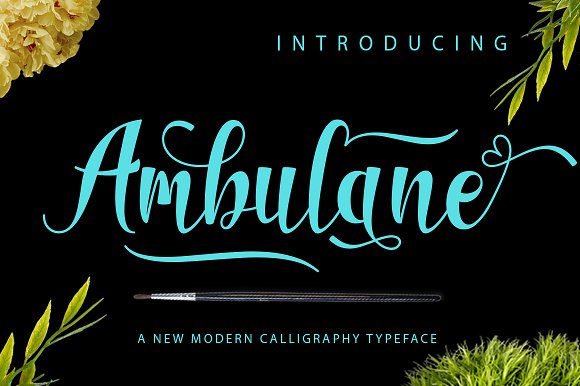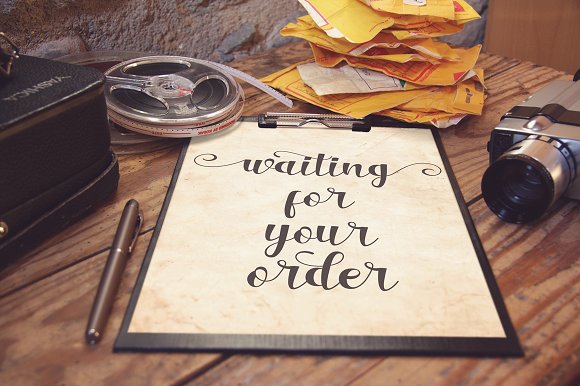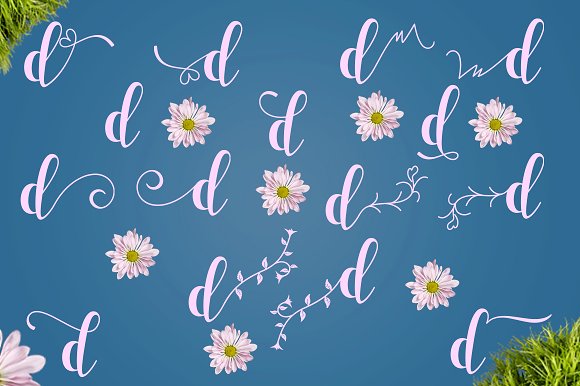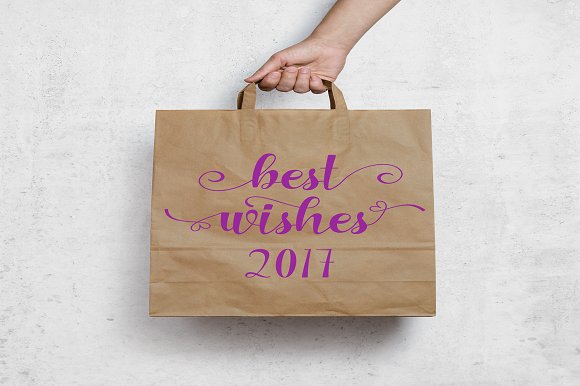
HomeScript FontsAmbulane Font Script Fonts Ambulane Font FacebookXPinterestWhatsApp Ambulane Font Poster 2 Ambulane Font Poster 3 Ambulane Font Poster 4 About Ambulane Font Ambulance is a stylish script font packed with swashes. DOWNLOAD NOW People also explored Rendezvouws Font Drawing Font Proxicated Font Pinkstone Font Miss Queen Font Berdinga Script Font Stitches Font Reglest Font Decoration Font 266 0 TagsAmbulane Font Previous articleBonito FontNext articleAdvantages Font LEAVE A REPLY Cancel reply Comment: Please enter your comment! Name:* Please enter your name here Email:* You have entered an incorrect email address! Please enter your email address here Website: Save my name, email, and website in this browser for the next time I comment. Personal Use Free Shawaki Personal Use Free Read more about this font Sehat Selalu Personal Use Free Read more about this font Bollado Personal Use Free Read more about this font Anggraini Personal Use Free Read more about this font BLOG Transform Your Website: Elevate Your Typography with 7 Best Web Font Generators Are you ready to transform your website's typography from ordinary to extraordinary? Great! Today, we're diving into the world of web font generators, which... The 10 Best Handwriting Fonts to Add Personality to Your Designs Using Fonts in Digital Marketing: Tips to Strengthen Your Brand Identity How to Cut Any Font on Cricut: Convert a Font to SVG (Free)